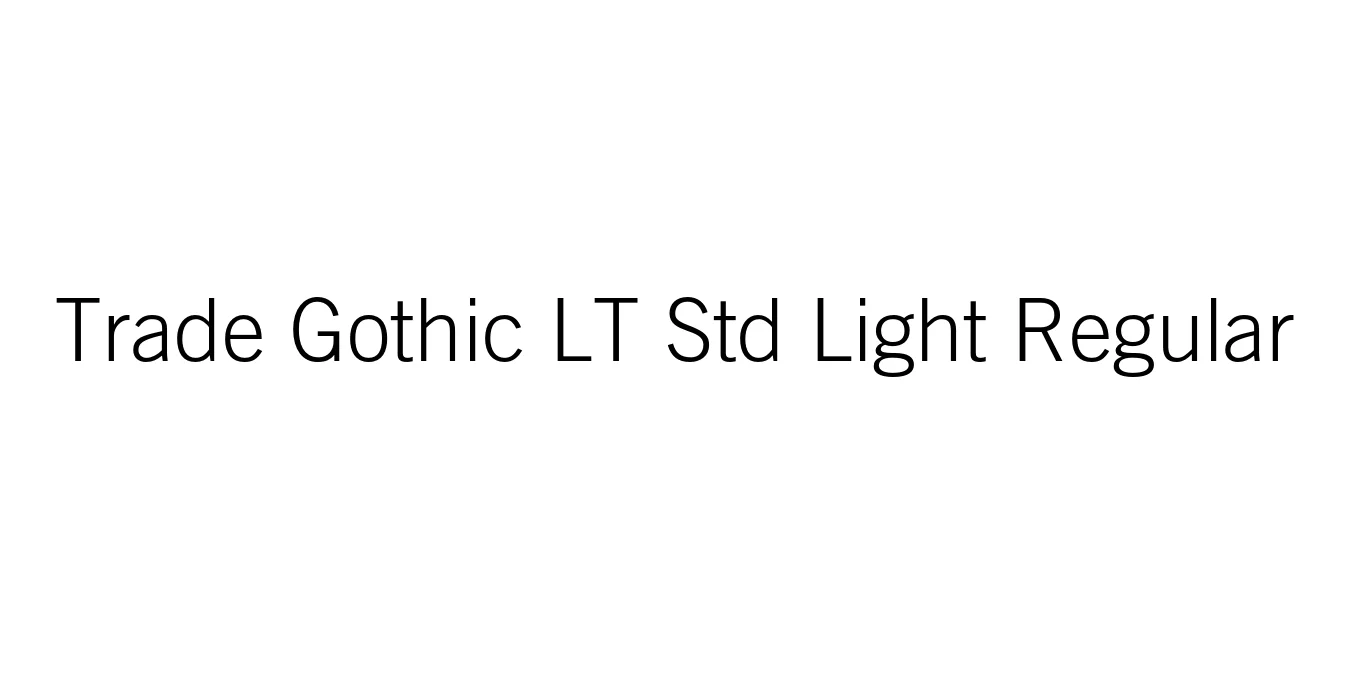
Trade Gothic LT Std Light Regular
Designed by Jackson Burke
Trade Gothic LT Std Light Regular is a quintessential member of the Trade Gothic family, originally designed by Jackson Burke in 1948. Unlike many other sans-serif families of the era that were designed as a single cohesive unit, Trade Gothic was developed over several years, resulting in a series of styles with slightly irregular characteristics. This lack of uniformity gives the font a unique, industrial charm and a sense of realism that distinguishes it from more clinical alternatives like Helvetica.
The Light Regular weight provides a sophisticated and airy aesthetic while maintaining the vertical proportions and narrow character widths for which the family is known. Its high legibility and classic grotesque structure make it an enduring choice for designers seeking a balance between mid-century modernism and contemporary utility. It is particularly effective in environments where space is at a premium but a premium, authoritative look is still required.
Trade Gothic LT Std Light Regular Best Uses
Excellent for body text in magazines and journals due to its narrow width and high legibility.
Highly effective for professional identity systems and corporate stationery.
A clean choice for minimalist user interfaces and legible digital content.
Perfect for high-end fashion or architectural marketing that requires a subtle, sophisticated touch.